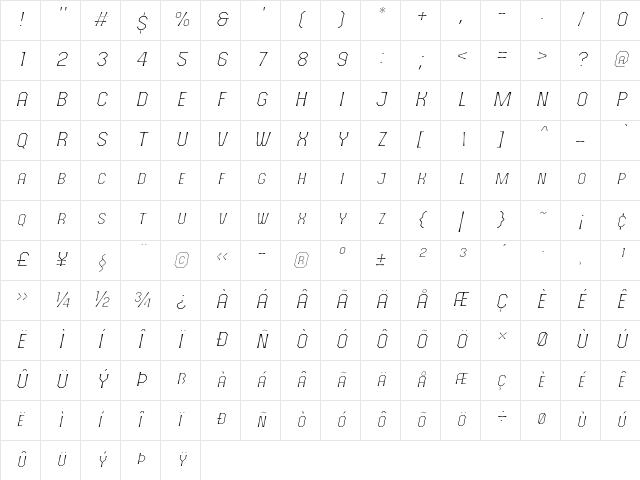
The October Two Light Italic Font Preview
| Foundry | 7NTypes |
| Designer | Situjuh Nazara |
Design Context for The October Two Light Typeface
The October Two Light takes a measured approach to typography — its balanced proportions and neutral character make it a reliable workhorse for both digital and print work. Its italic angle brings a sense of urgency and motion to the letterforms. The delicate stroke weight brings airiness and refinement to layouts.
Pro Tip: Try The October Two Light for annotation and caption copy alongside an upright companion — the contrast in angle creates a dynamic but ordered typographic system.